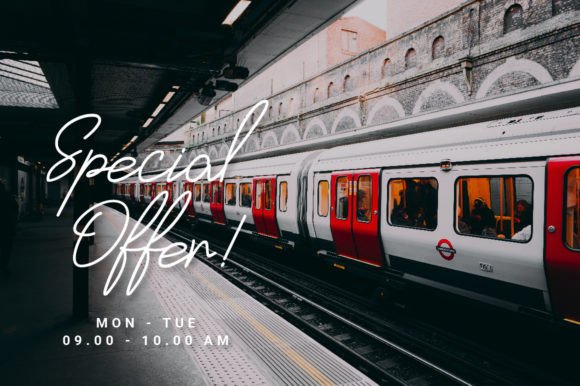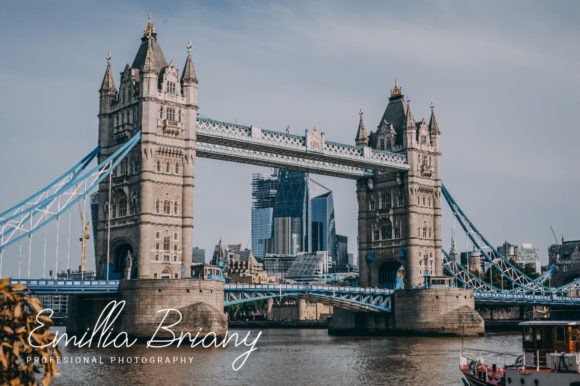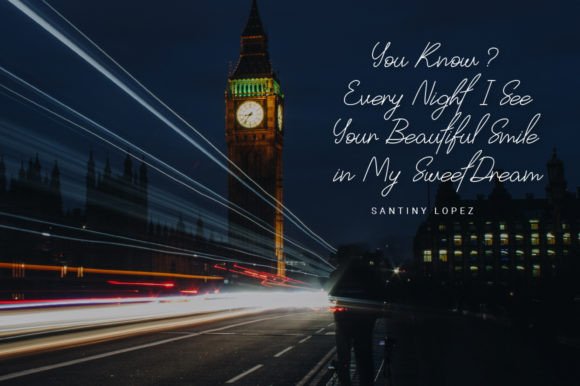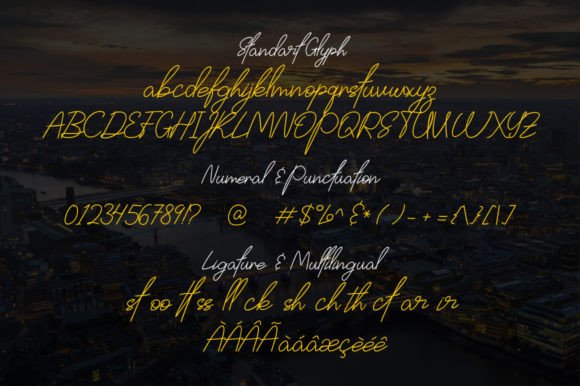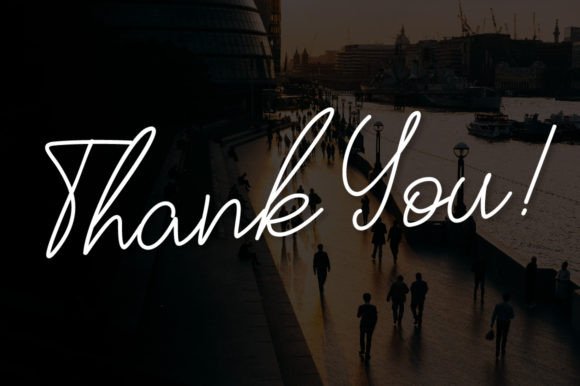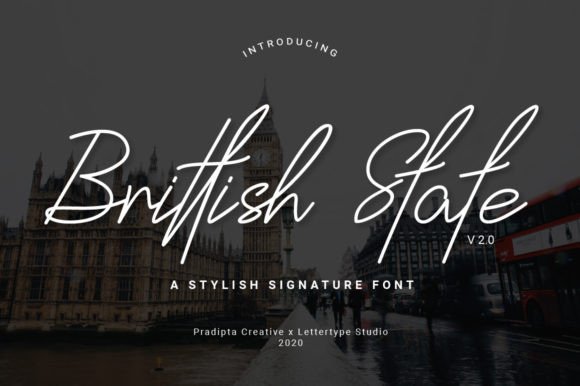
Brittish State
About Brittish State Font
Brittish State is a tall and modern handwritten font. Fall in love with its incredibly versatile style and use it to create spectacular designs!